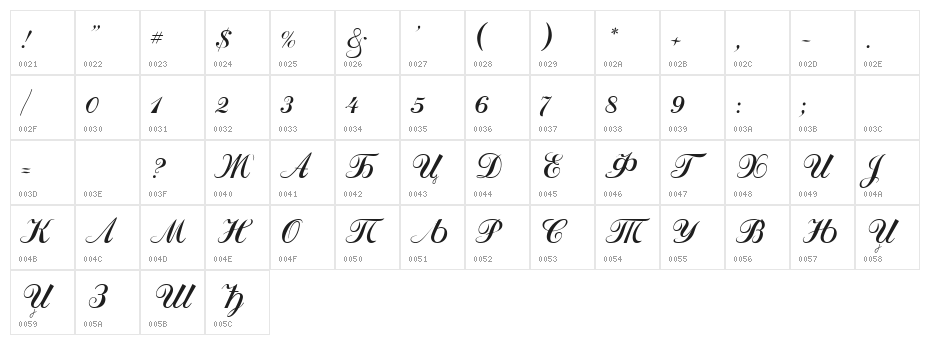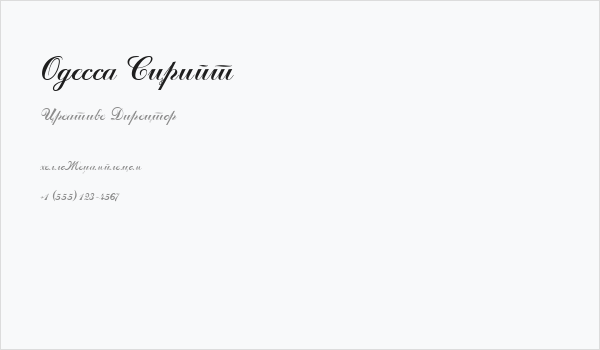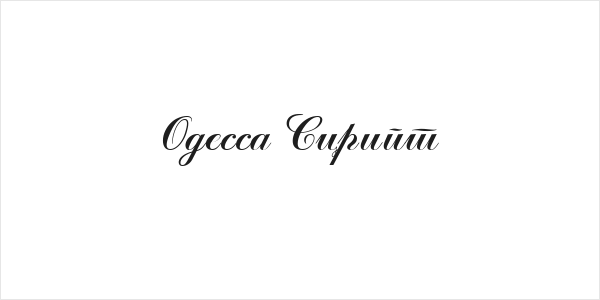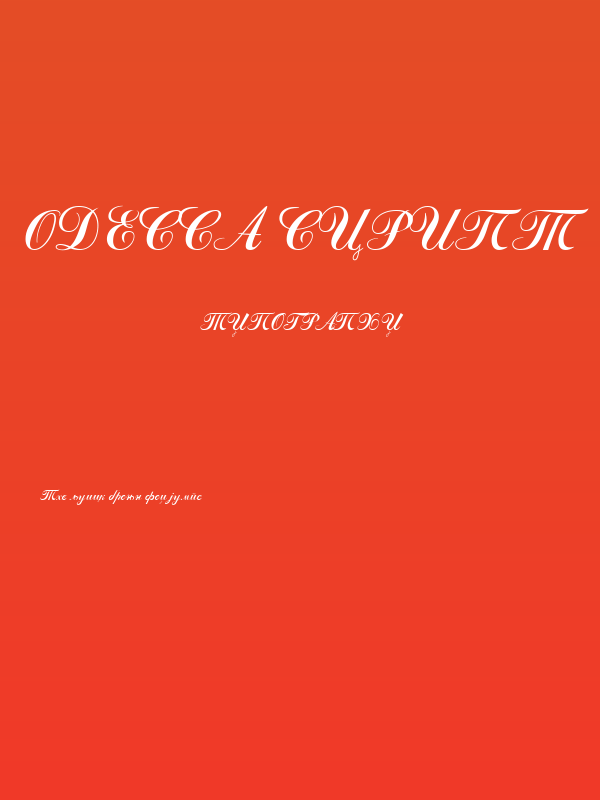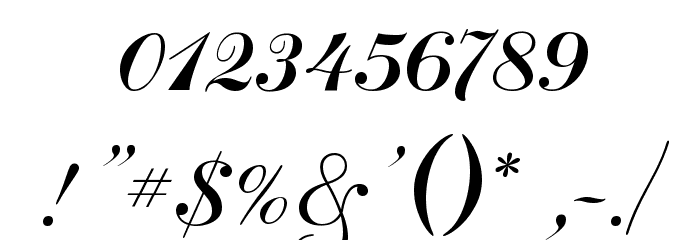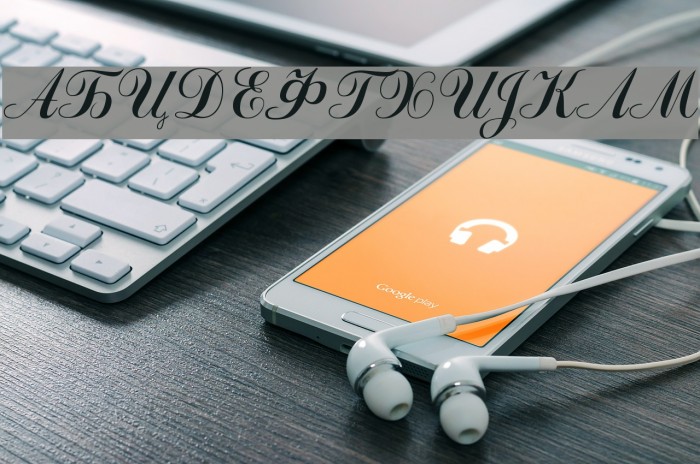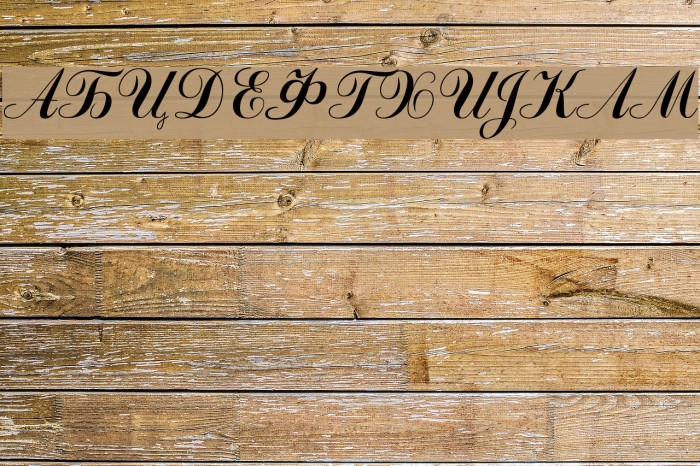
Odessa Script Font
Odessa Script Description
This font exhibits a classic script style with elegant, flowing curves and a sophisticated appearance. The uppercase letters are characterized by their ornate loops and swashes, giving them a refined and decorative look. The lowercase letters maintain a consistent flow, with smooth connections between characters, enhancing the script's fluidity. The numerals are designed to complement the overall style, featuring similar curves and a balanced structure. Special characters are crafted with the same attention to detail, ensuring they blend seamlessly with the rest of the typeface. The font's high contrast in stroke thickness adds to its dramatic and eye-catching appeal, making it suitable for formal and decorative applications.
| Overall Style | Classic |
| Use Case | Logos, Headlines, Invitations |
| Proposed Projects | Wedding invitations, luxury branding, elegant signage, formal event programs, and decorative headlines. |